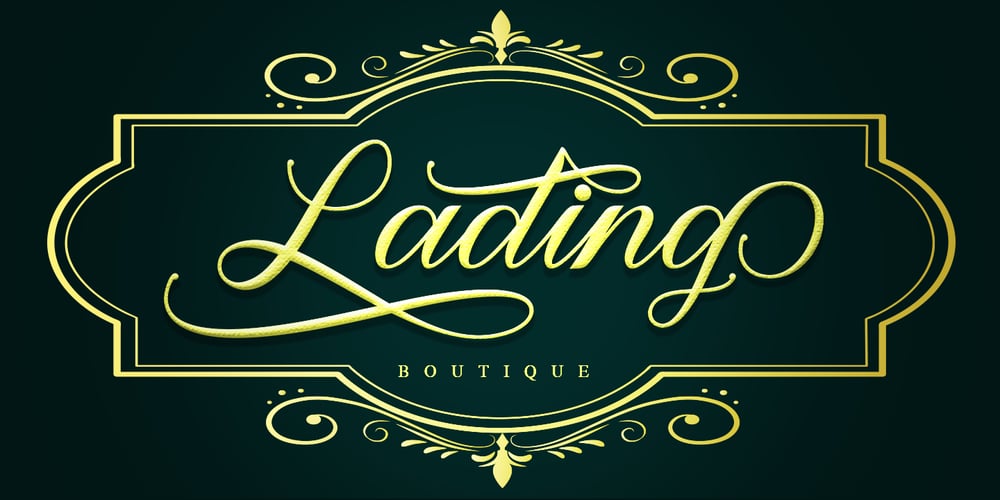
Maughan Script
Maughan Script font
Maughan Script Font Family was designed by Samsul Kamal and published by Lettersams. Maughan Script contains 1 styles and family package options. Maughan Script is a modern calligraphy font. Vintage script font that is thick, elegant & fun. Very suitable for various purposes and desires. Such as logos, labels, wedding invitations, brands, t-shirts, letterhead, signboards, news, book covers, magazines, posters, badges, etc. Maughan Script includes changes in the OpenType language style, binding and international support for most Western languages. To activate the OpenType Stylistic alternative, you need a program that supports OpenType features such as Adobe Illustrator CS, Adobe Indesign & CorelDraw X6-X7, Microsoft Word 2010 or newer versions. Maughan Script is coded with PUA Unicode, which allows full access to all additional characters without having to design special software. Mac users can use the Letter Book, and Windows users can use the Character Map to view and copy one of the additional characters to paste into your favorite text editor / application. If you need help or have questions, let me know or via email “lettersams@gmail.com” I am happy to help 🙂 Thank you & Congratulations on the Design!